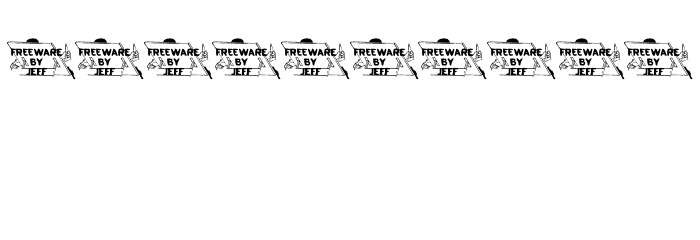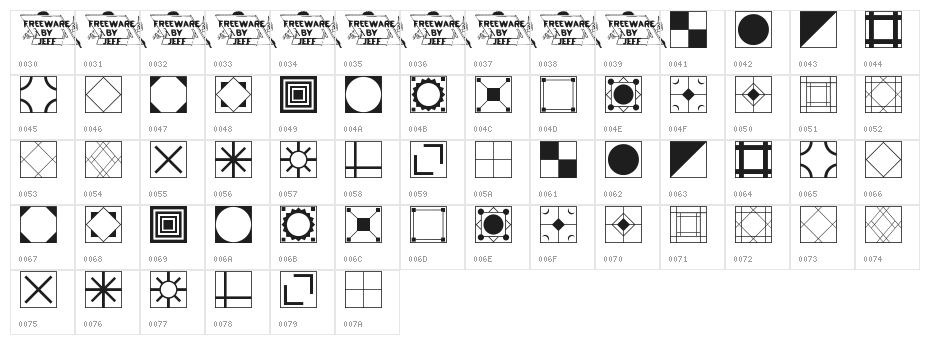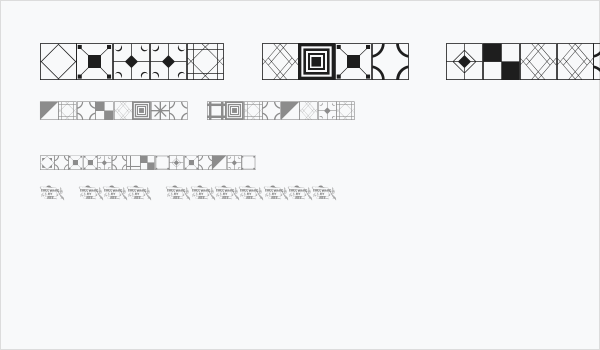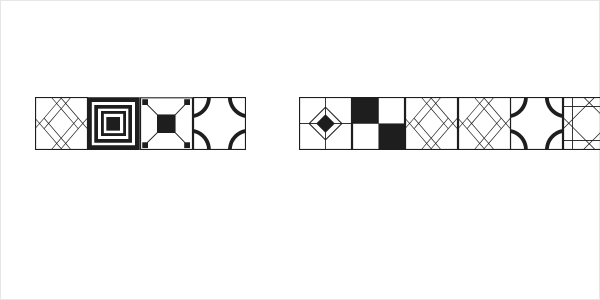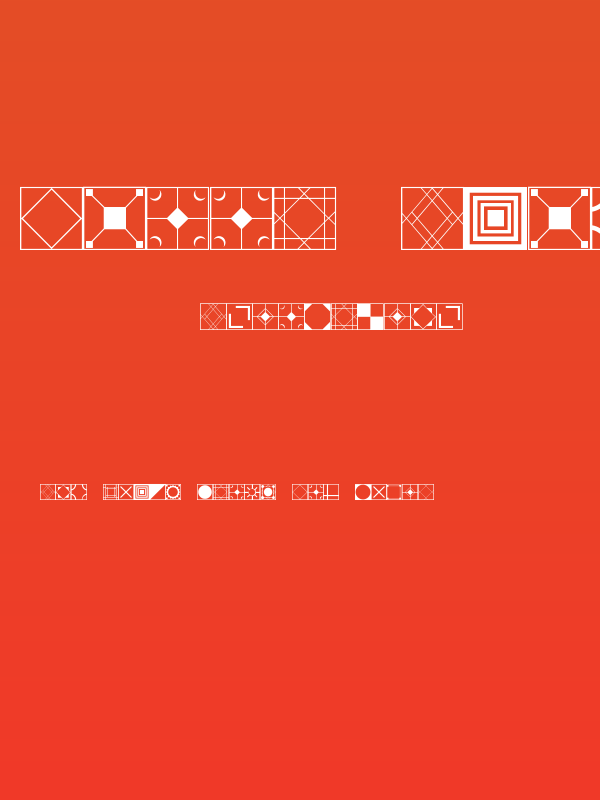
Floor Tile Patterns JL Font
Floor Tile Patterns JL Description
A decorative display font featuring a variety of geometric tile patterns, including circles, squares, diamonds, and intricate line work. Each character is represented by a unique floor tile-inspired motif, with bold outlines and high contrast between black and white elements. The style is ornamental and visually striking, suitable for creative and thematic design projects.
| Overall Style | Decorative, Geometric, Ornamental |
| Use Case | Headlines, Logos, Posters, Decorative elements |
| Proposed Projects | Interior design mockups, event invitations, branding for tile or flooring companies, decorative headings, posters, and packaging. |